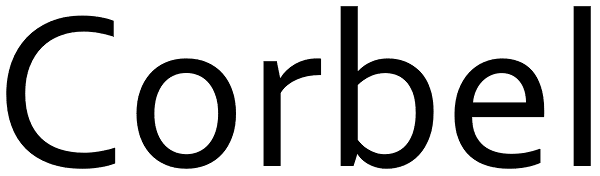
Corbel
Corbel is designed to give an uncluttered and clean appearance on screen. The letter forms are open with soft, flowing curves. It is legible, clear and functional at small sizes. At larger sizes the detailing and style of the shapes is more apparent...